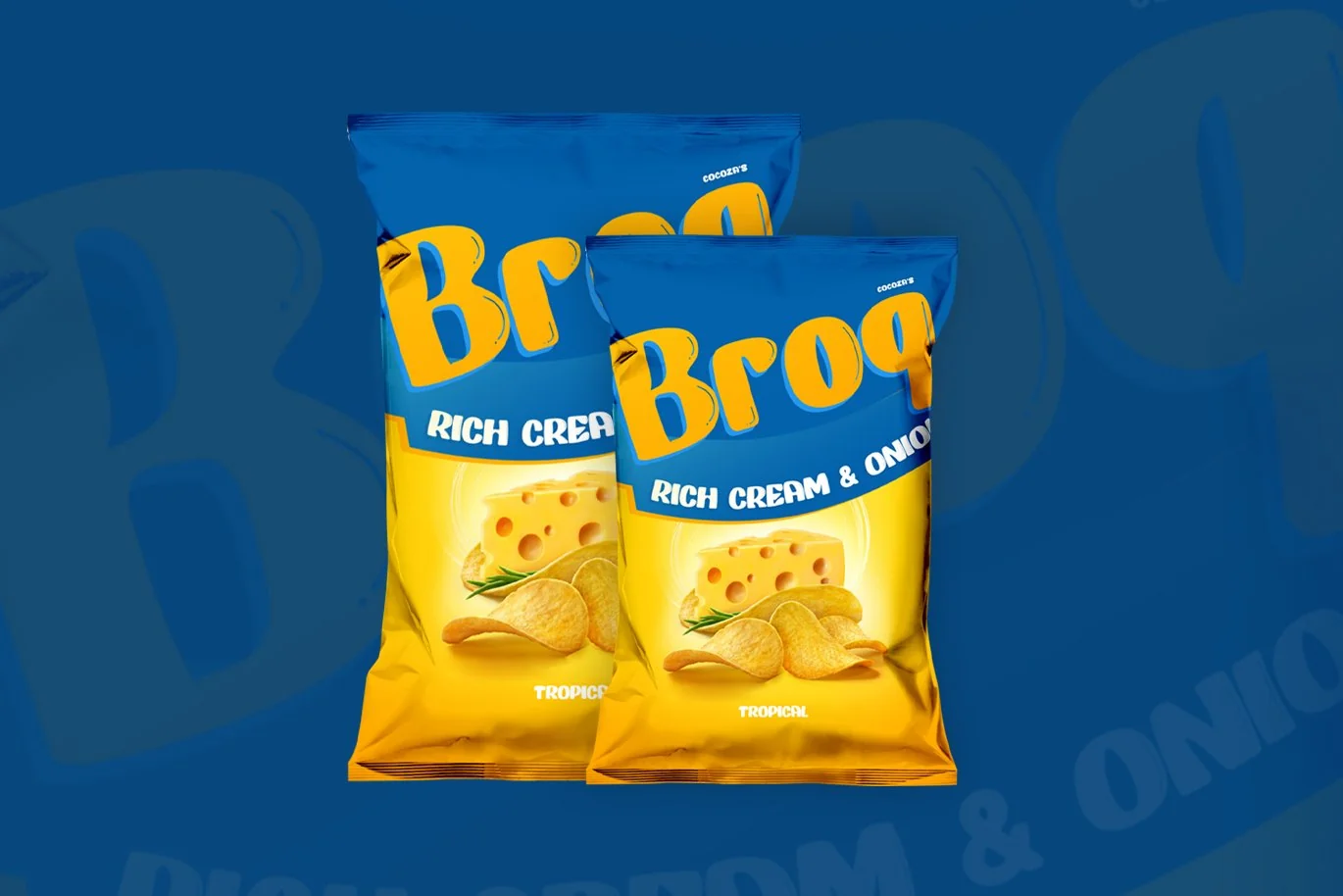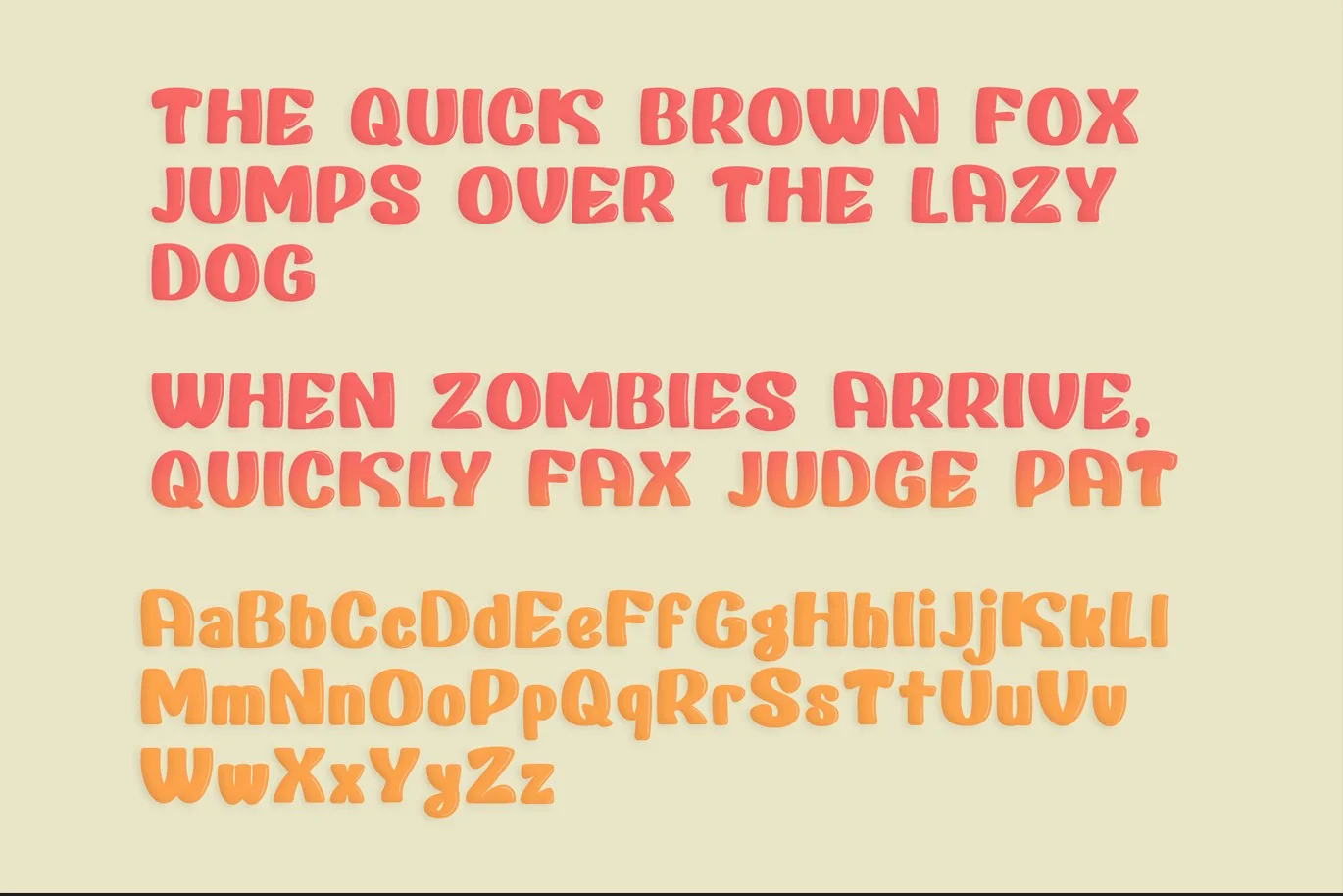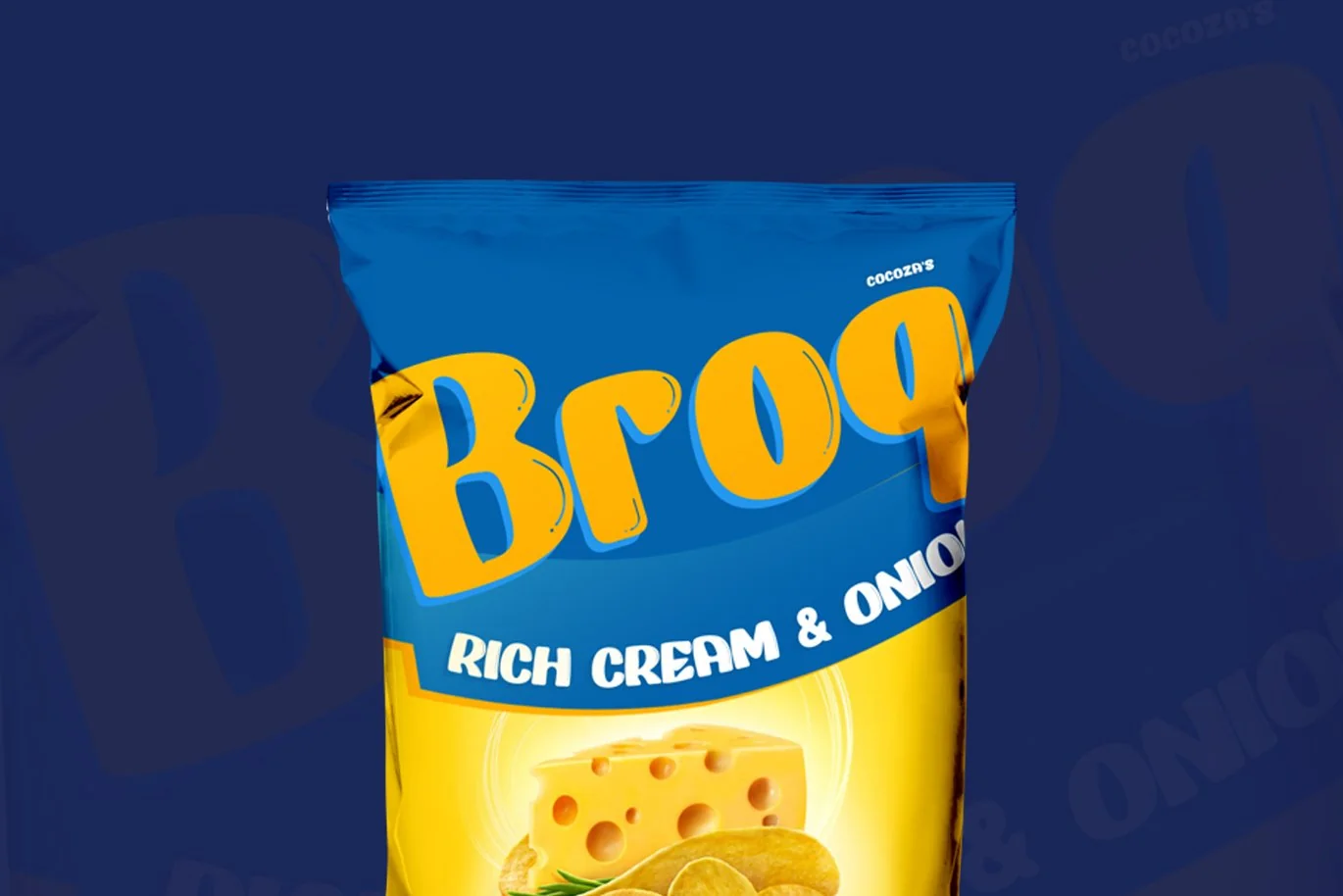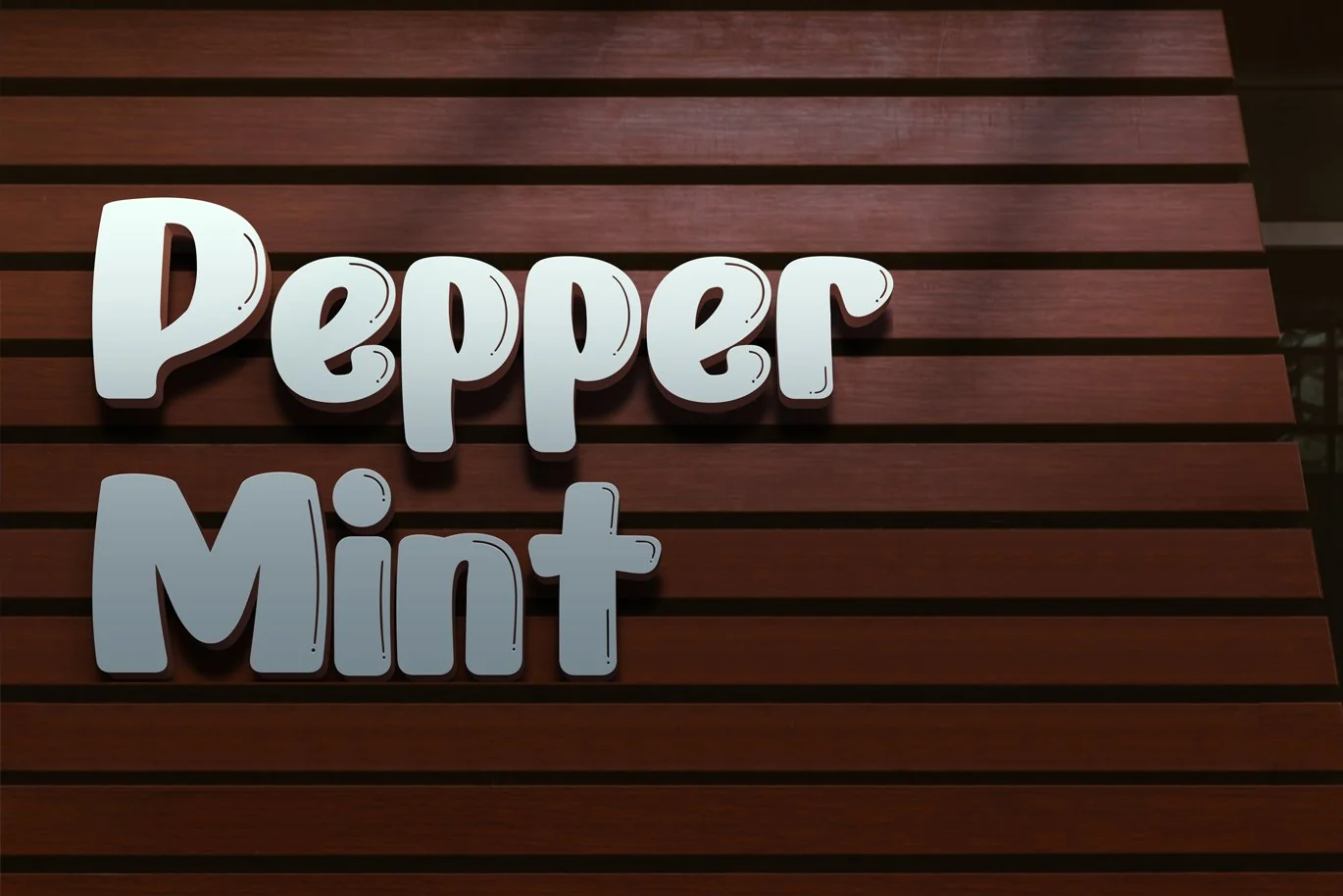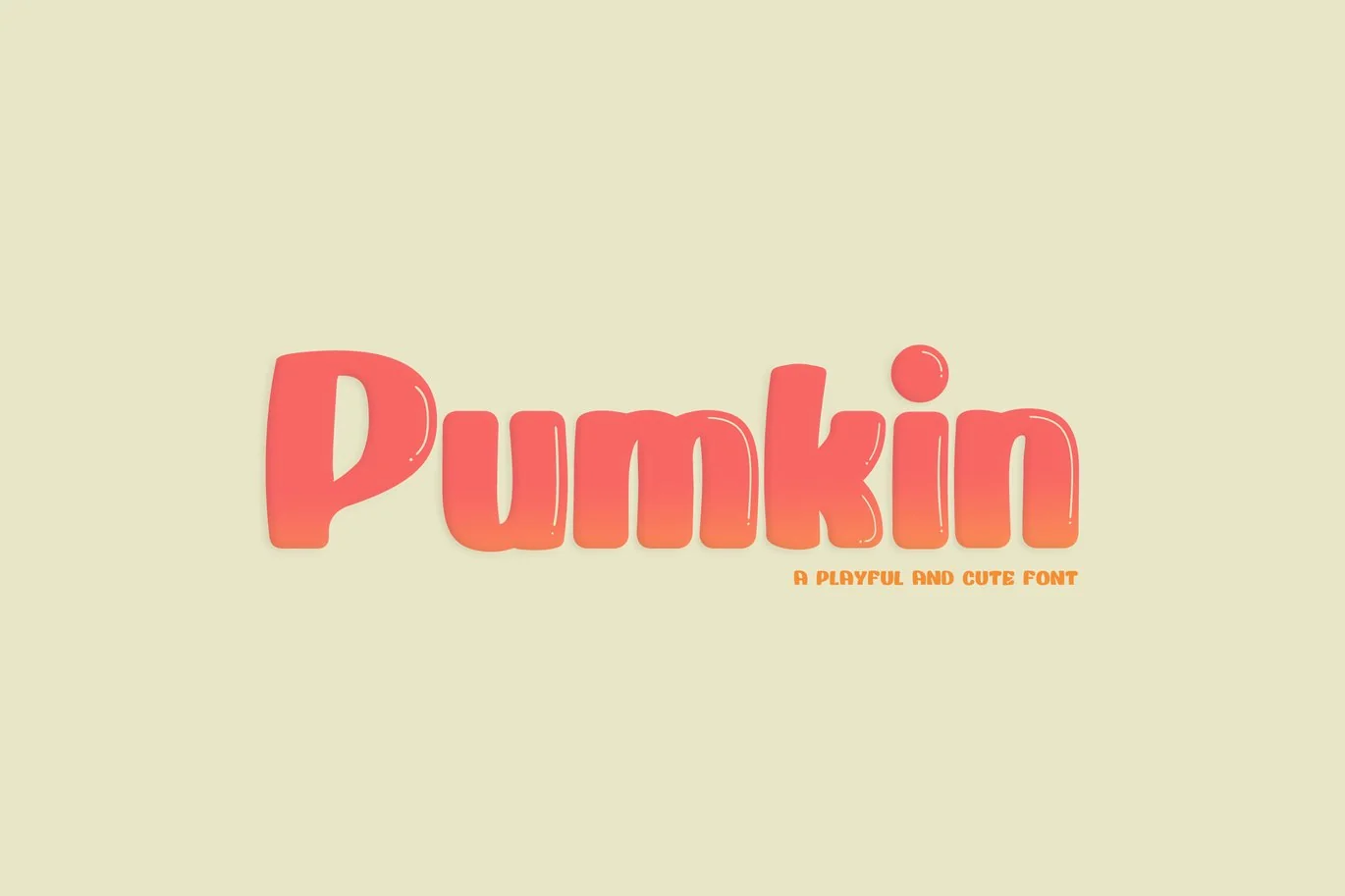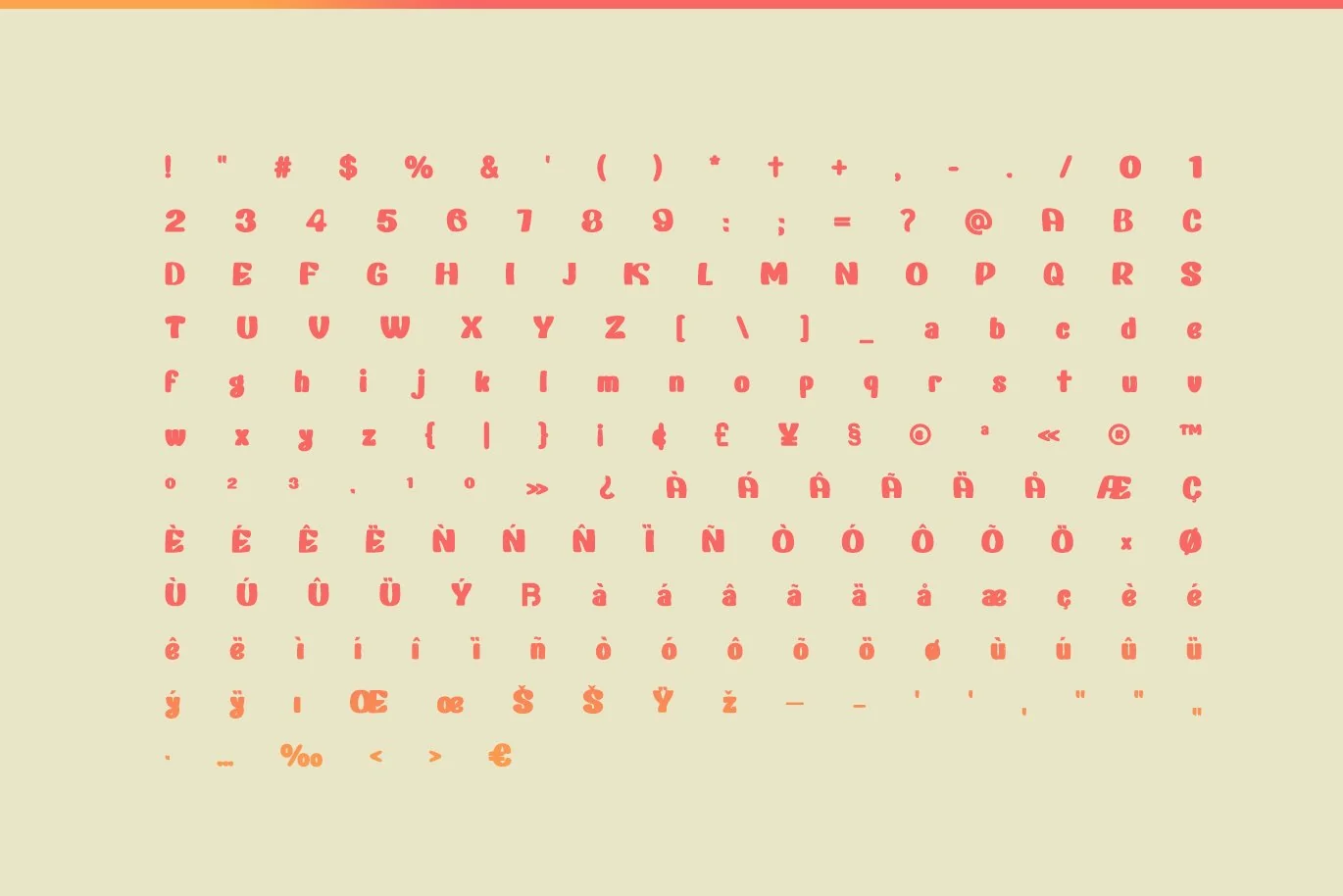
Pumkin – Playful and Cute Display Font
Pumkin Font Family
Pumkin is a Playful modern display font family. Pumkin carries a Cute, unique, and social character line with an adorable finish, giving a new impression.
Pumkin is perfectly crafted for Kids magazines, advertisements, websites, headlines, titles, captions, UIs, games, apps, films, apparel and more.